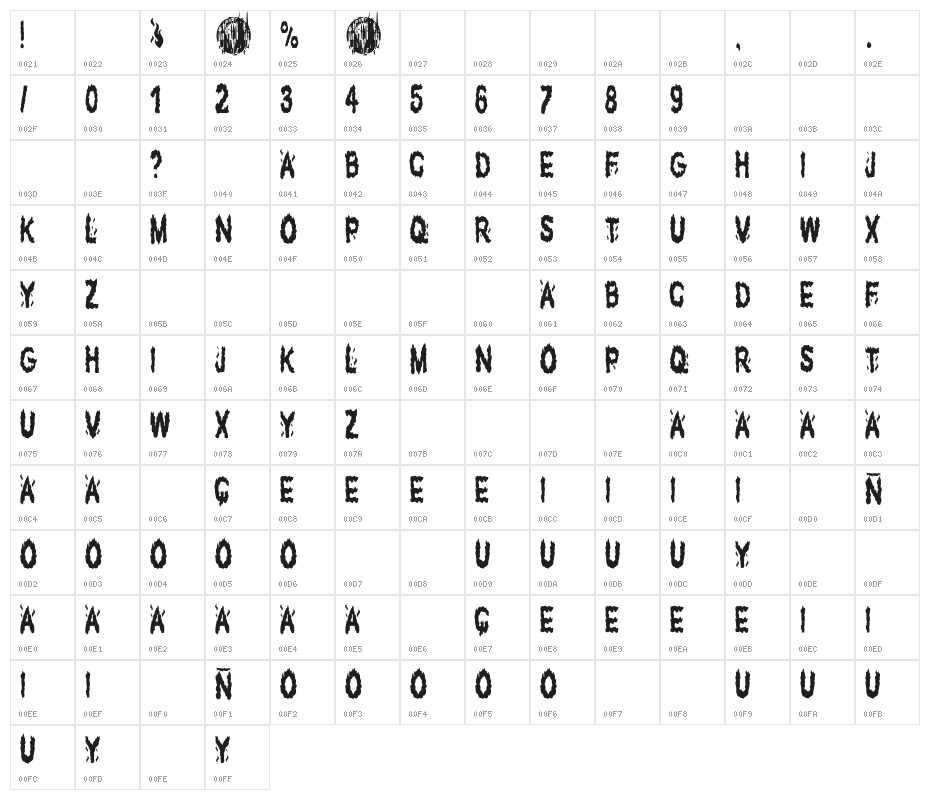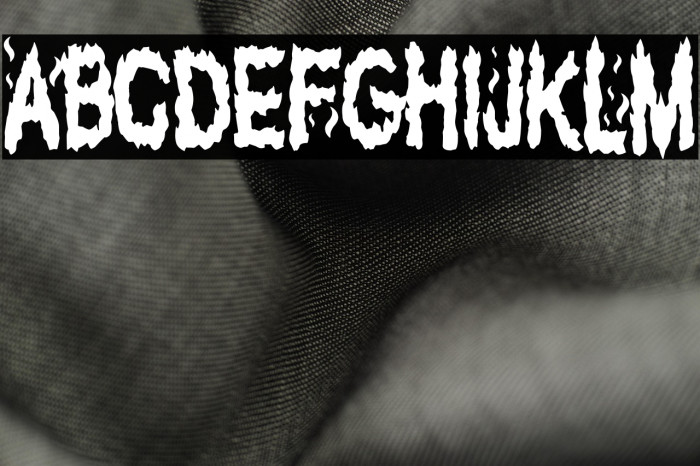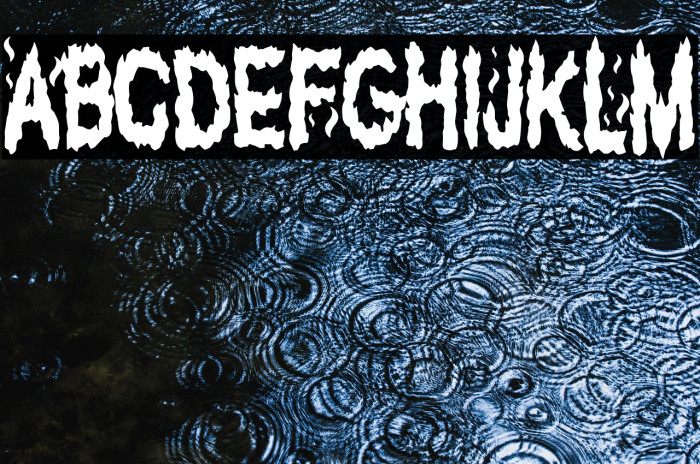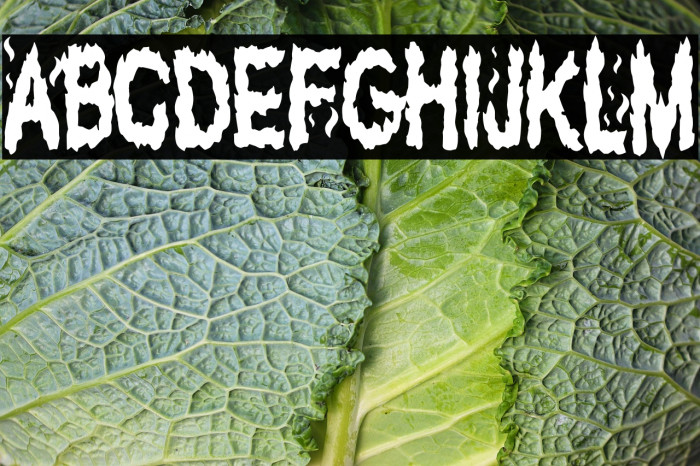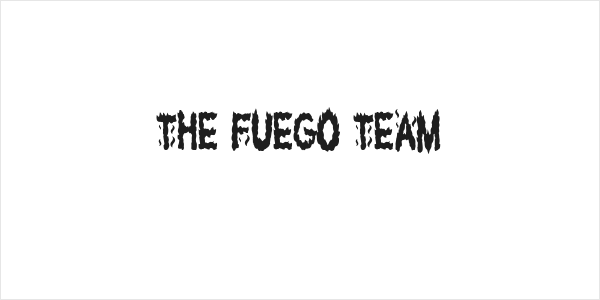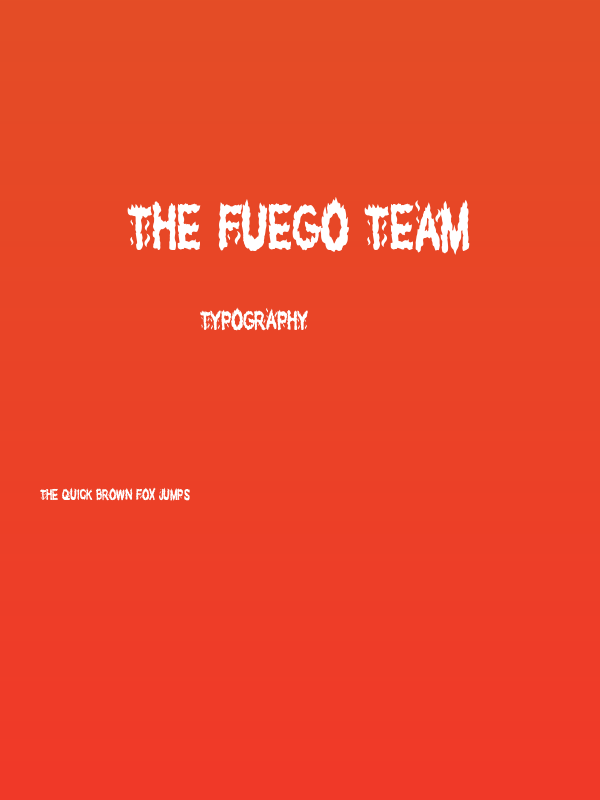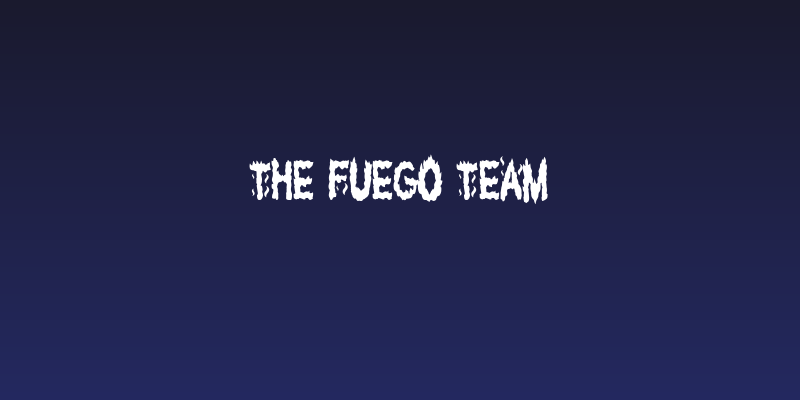
The Fuego Team Font
The Fuego Team Description
This font features a bold and fiery design, with letters that appear to be engulfed in flames. The edges are jagged and uneven, giving it a dynamic and intense appearance. It captures a sense of energy and movement, making it ideal for projects that require a strong visual impact. The uppercase and lowercase letters maintain this fiery theme, ensuring consistency across all characters. Numbers and special characters are also designed with the same burning effect, adding to the font's cohesive style. This font is perfect for creating eye-catching headlines, posters, or any design that needs a dramatic flair.
| Use Case | Headlines, Posters, Themed Events |
| Proposed Projects | Ideal for horror-themed posters, Halloween invitations, or any project needing a fiery, dramatic touch. |